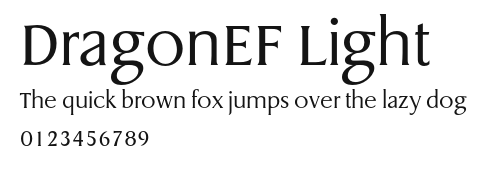
About DragonEF Light.otf
DragonEF Light.otf is a modern, elegant sans-serif font designed for ultimate readability and visual harmony. Perfect for branding, headlines, web design, and print materials.